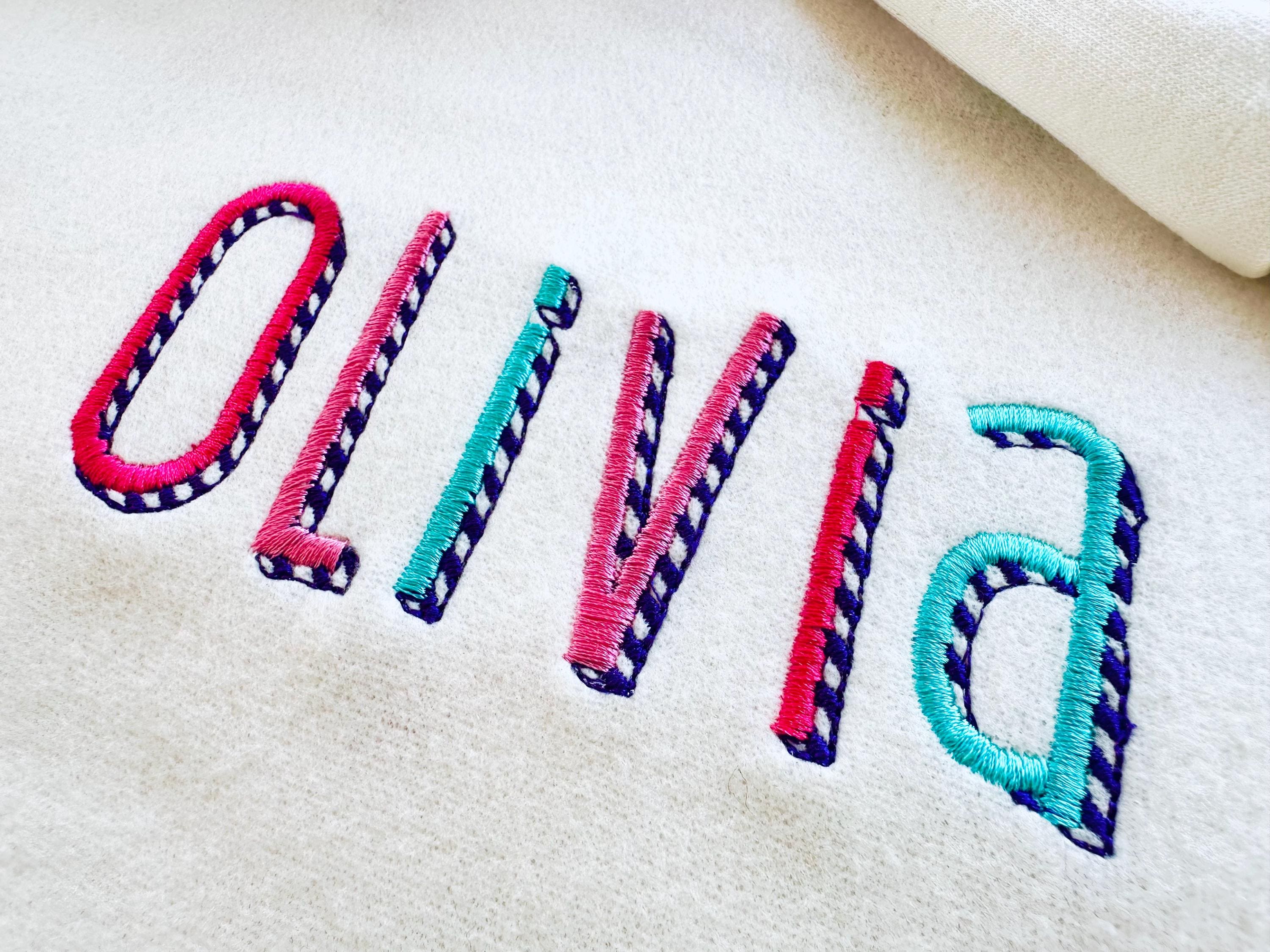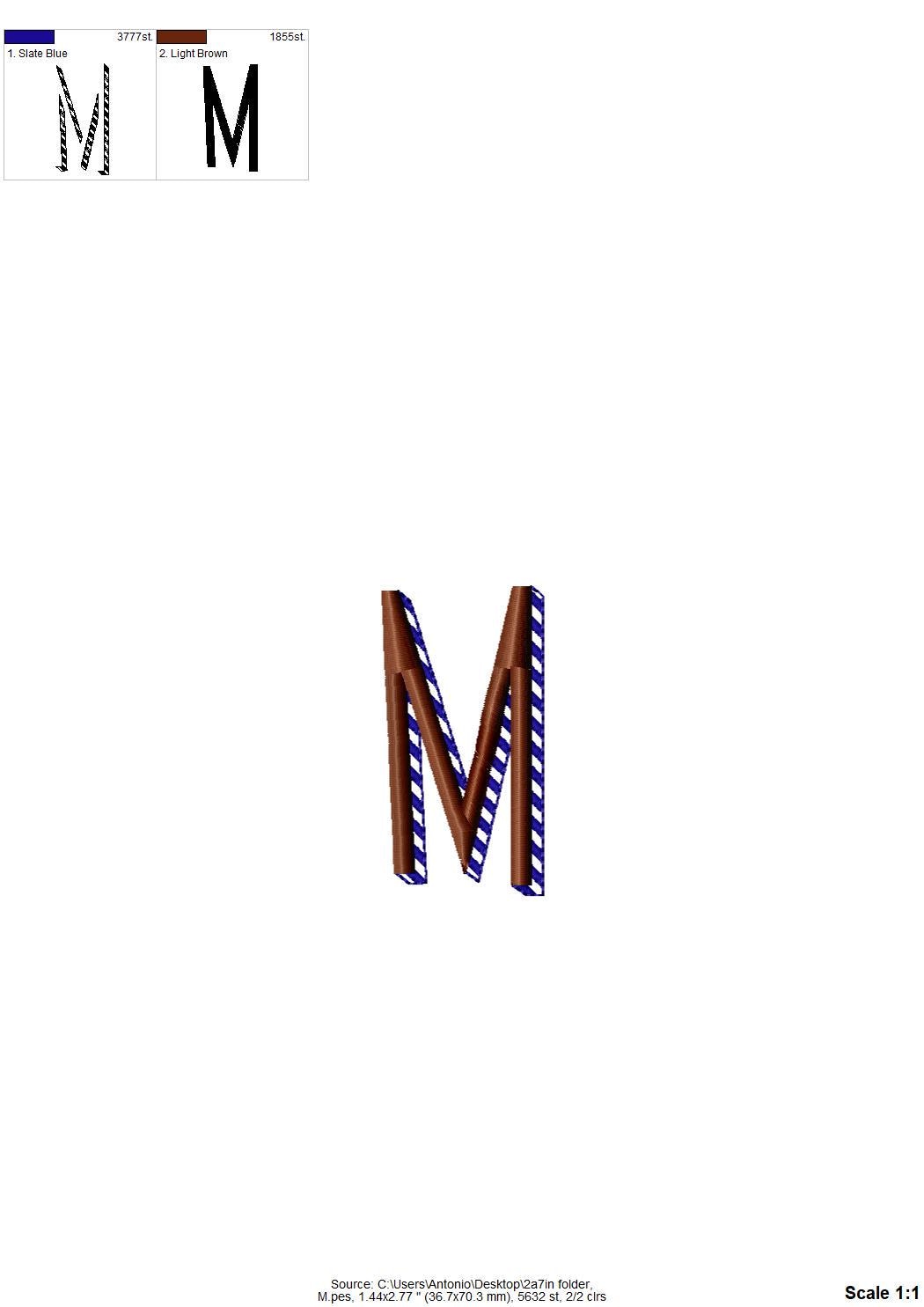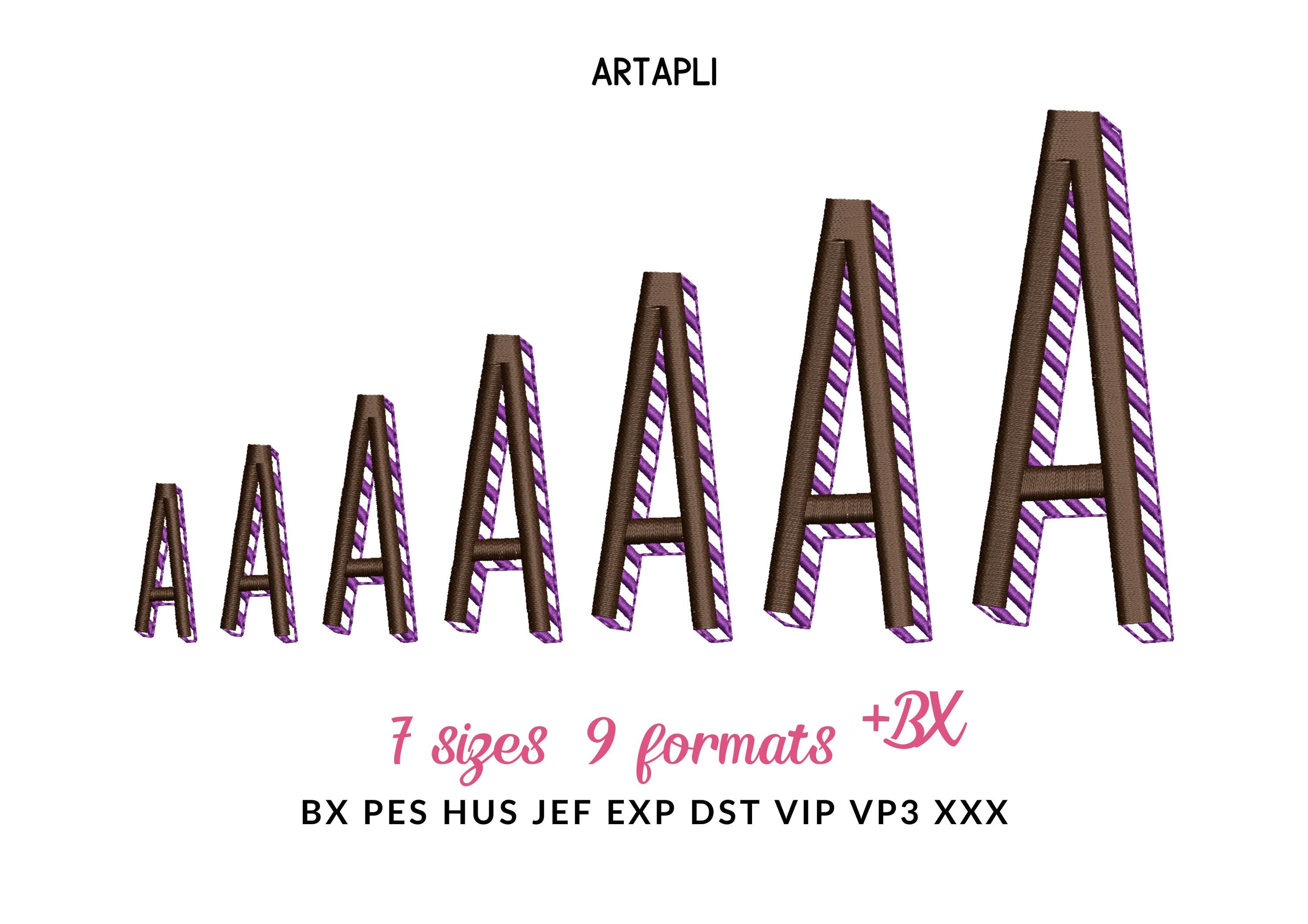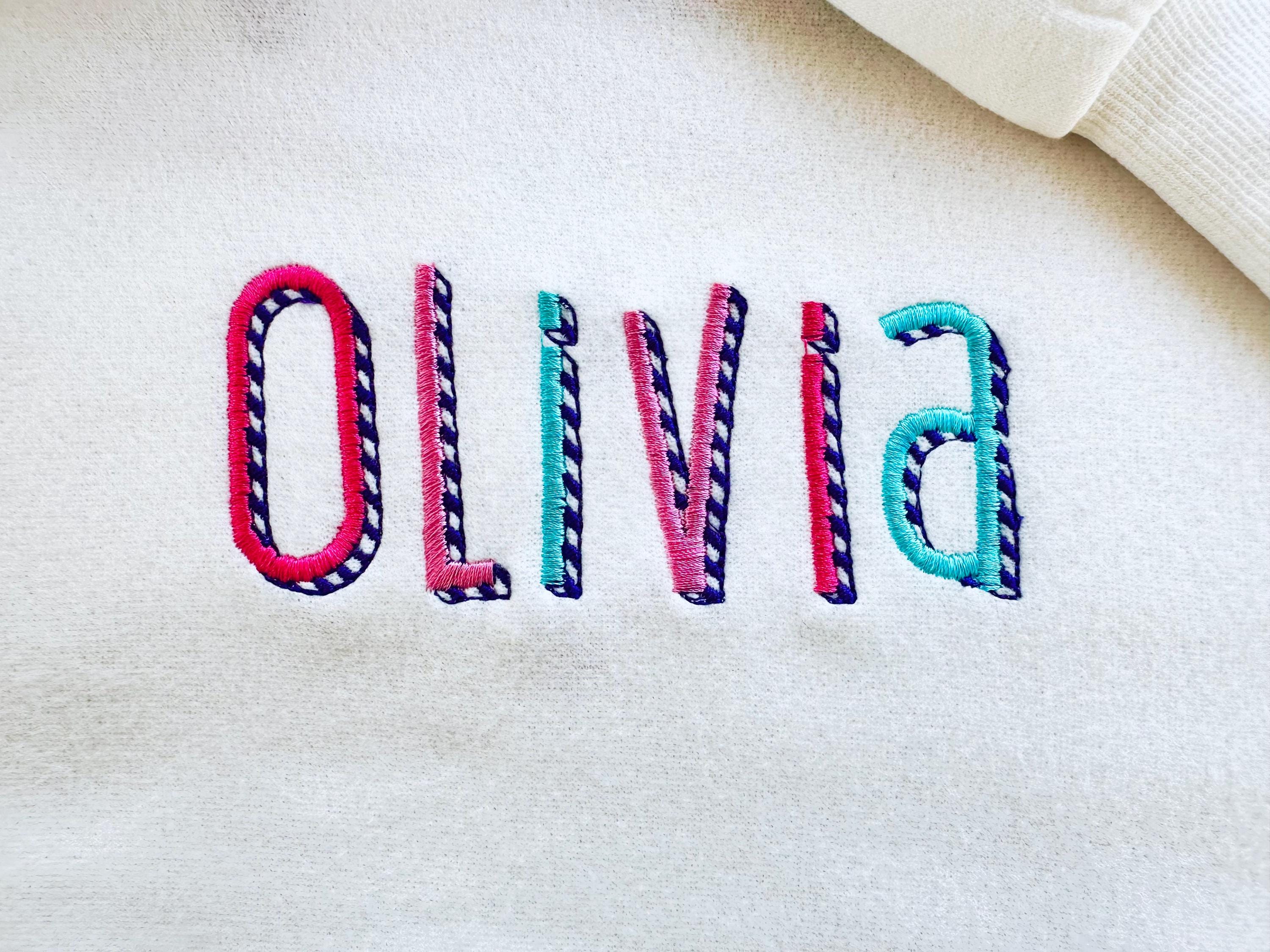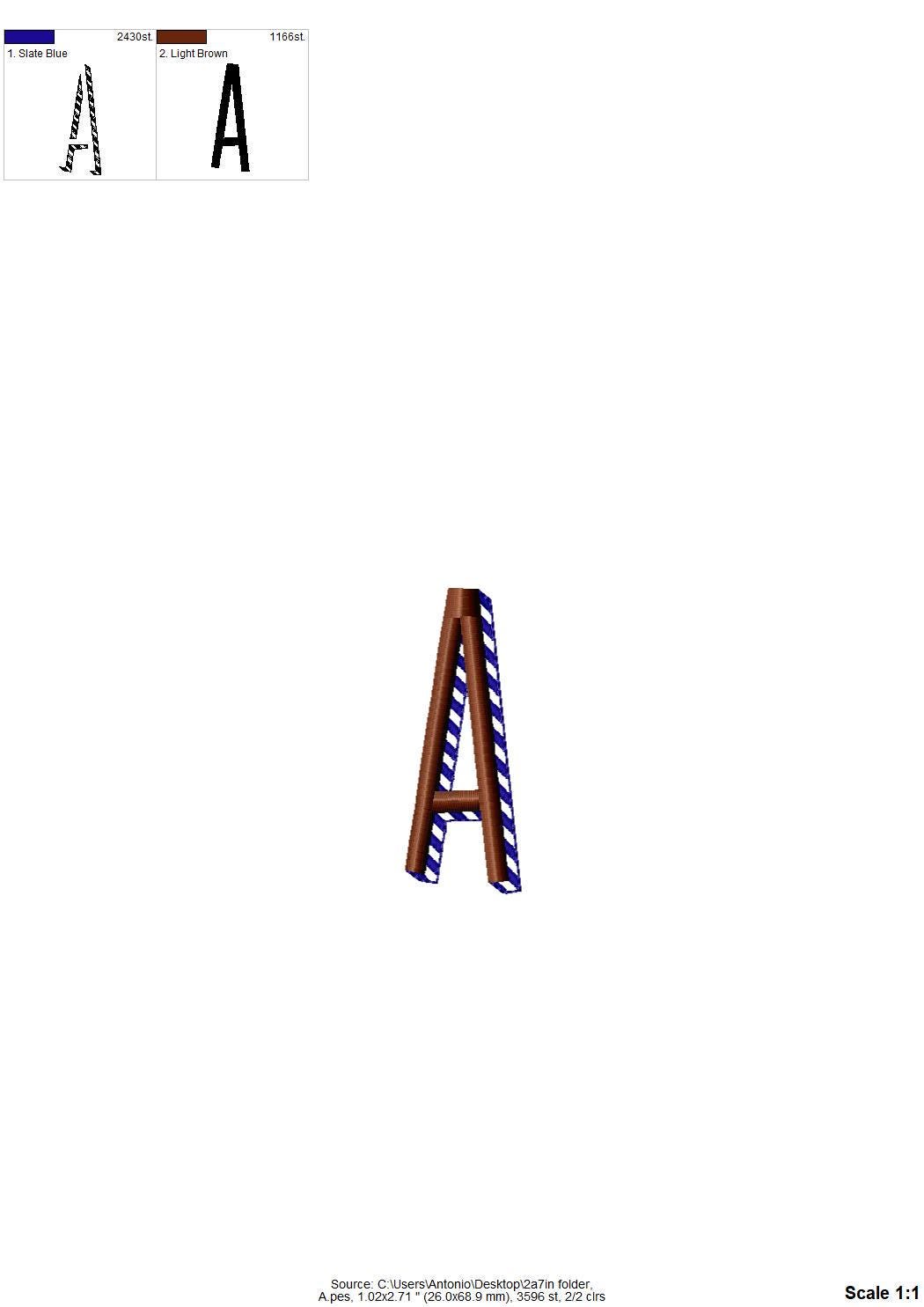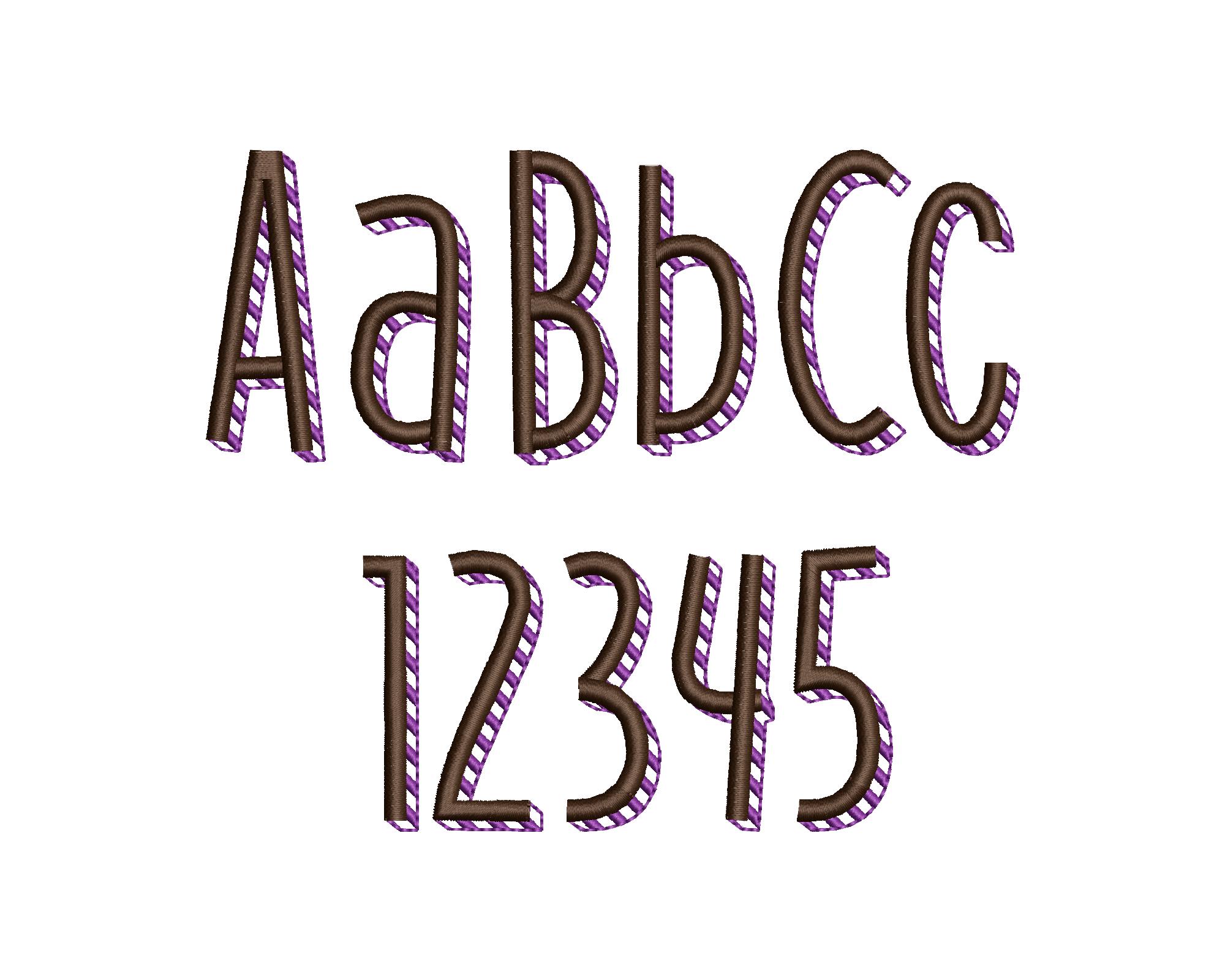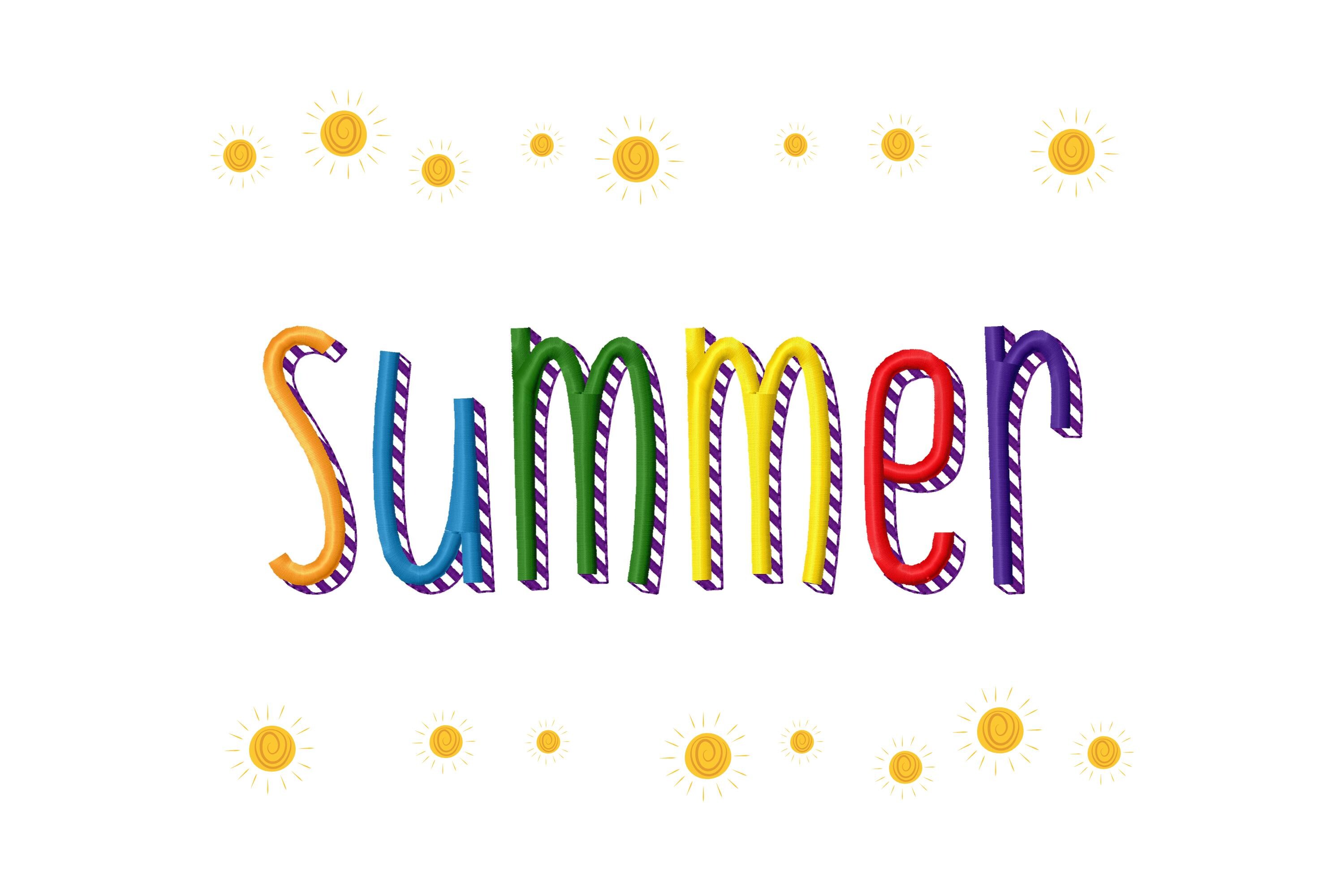
Shadow FONT satin stitches stripes machine embroidery designs sizes 1.2 to 4 inches shadowed monogram alphabet kids colorful embroidery font
This satin stitch font features a striped shadow with a transparent effect, allowing the background fabric to show through. The result is absolutely stunning!